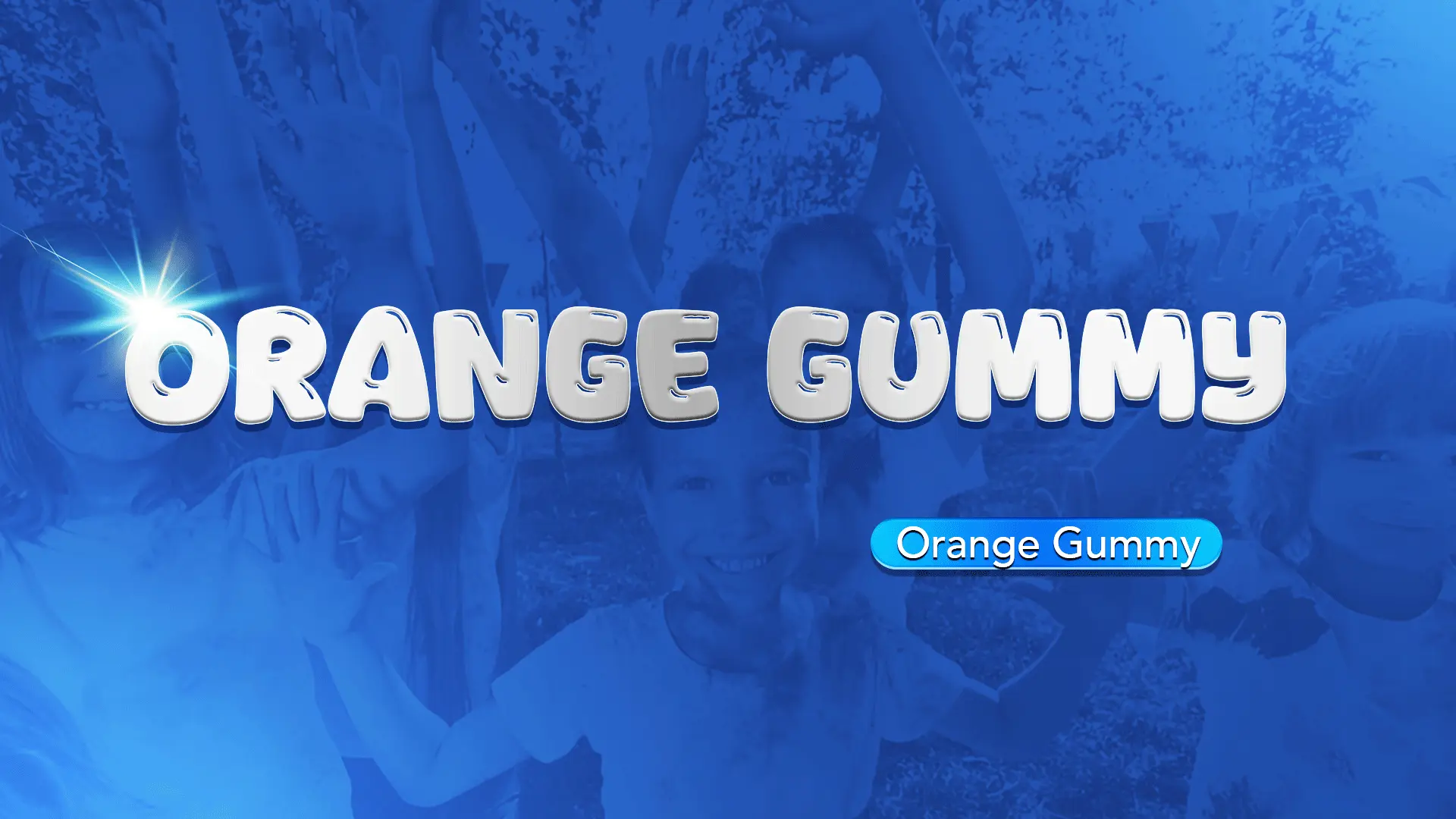
The Orange Gummy font family may be ideal for you if you enjoy working on an artistic design project. The lively, expressive look of this typeface, which was created by Khurasan, makes it ideal for Children's Content- Storybooks or picture books, Party & Event Materials (Birthday invitations for young child), Party banners or signage, School and Classroom Use, nstagram graphics For mom blogs, playroom inspiration, or toy reviews, Toys or kids’ clothing packaging and other light-hearted visual projects.
Regular, Regular are the two primary font styles of the Orange Gummy font family. You may build dynamic, visually appealing text layouts with the distinct flair that each style offers. With crisp, readable lines and a relaxed tone.